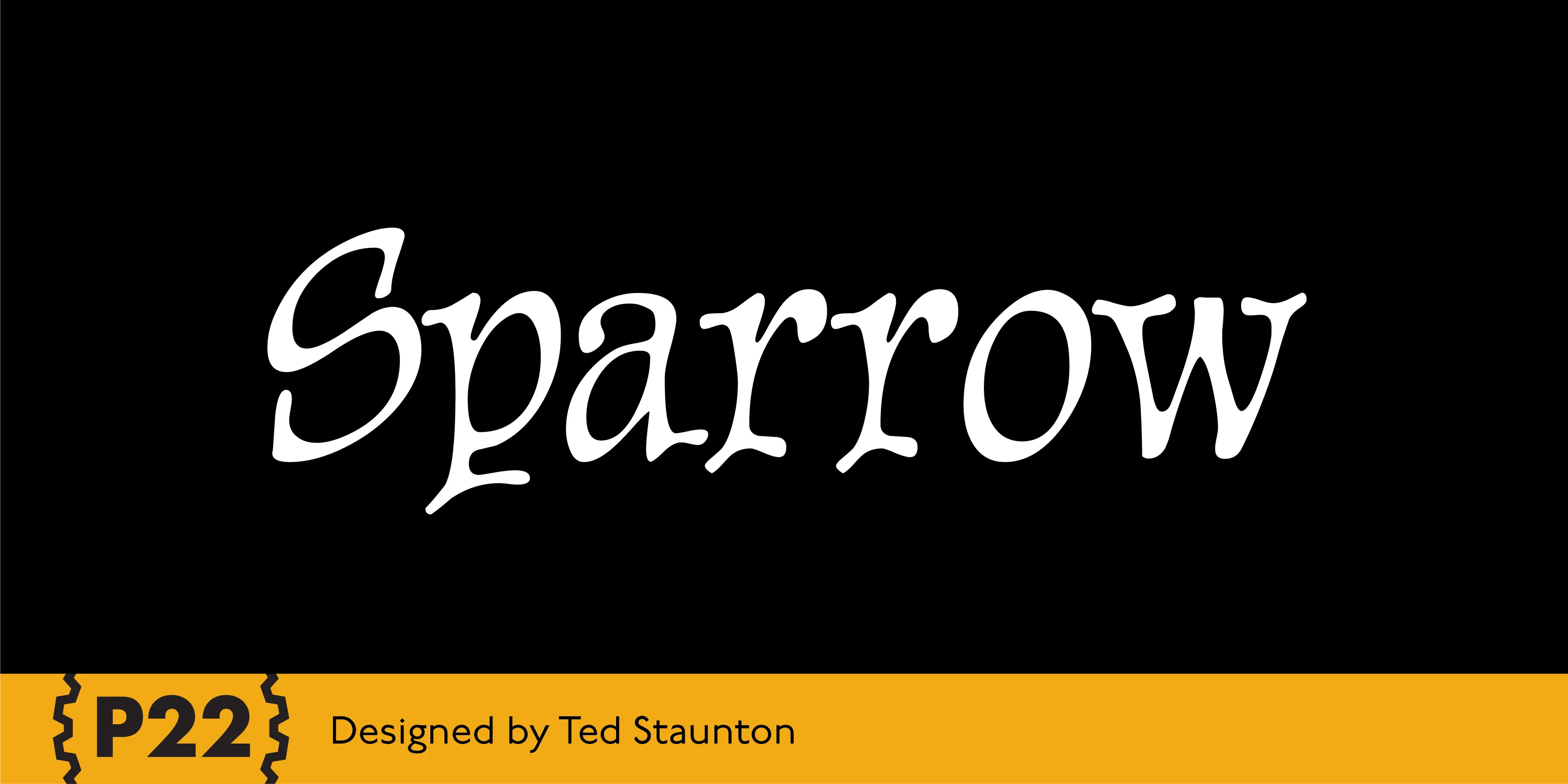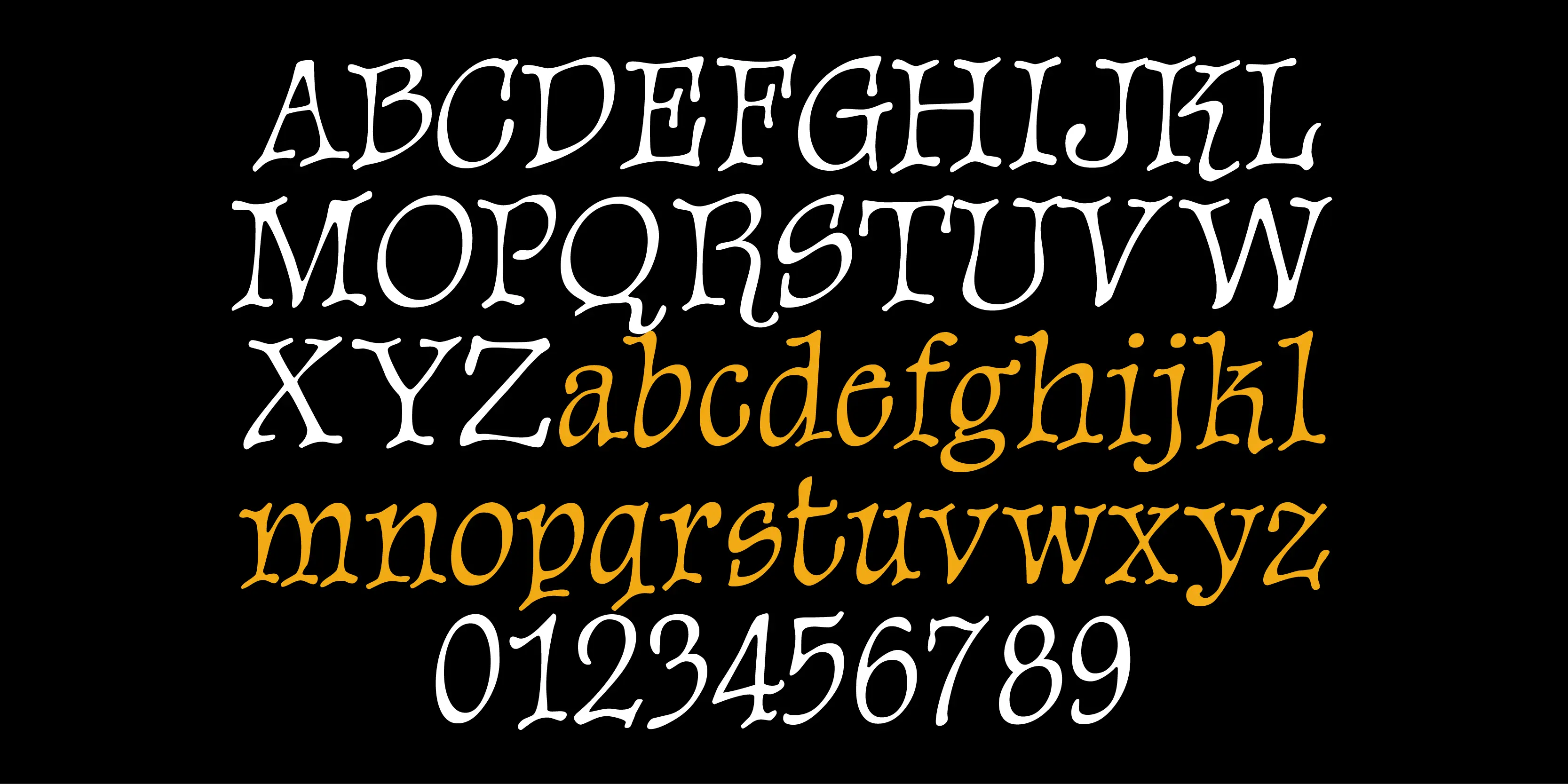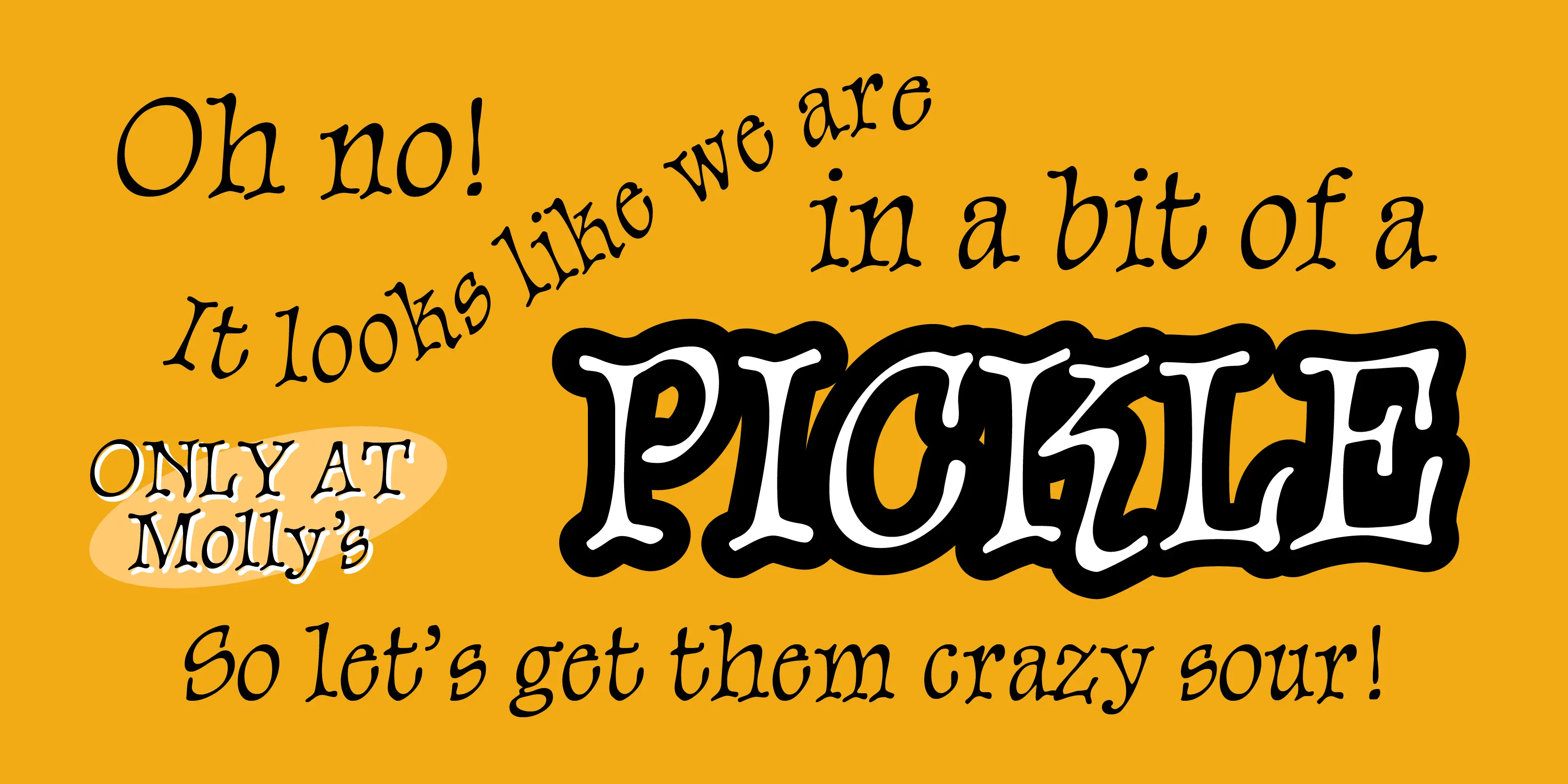
Sparrow Font
Sparrow
P22 Sparrow is based on handwritten lettering executed with a fine-pointed steel “crow-quill” pen. Designed for use in small sizes of continuous text setting such as poetry. This style was originally designed for a series of Script-crafted calligraphic booklets in 1963.